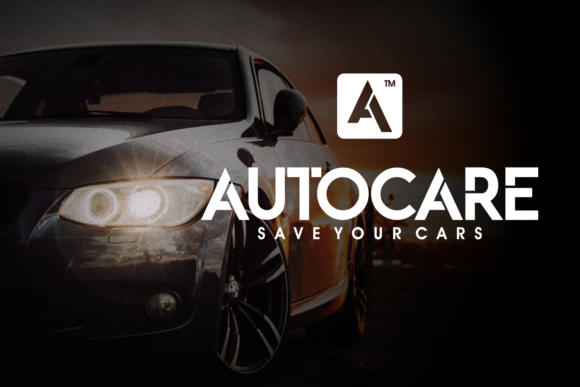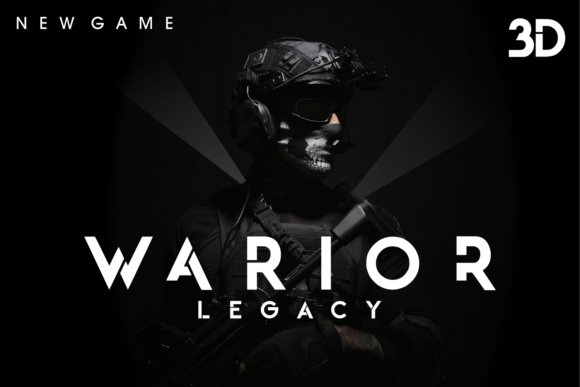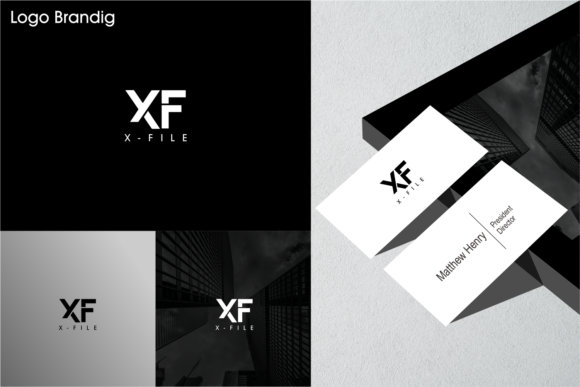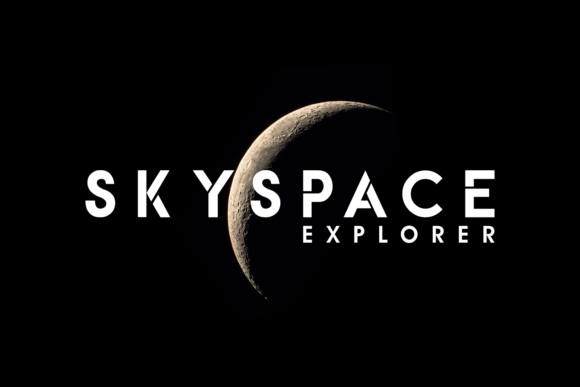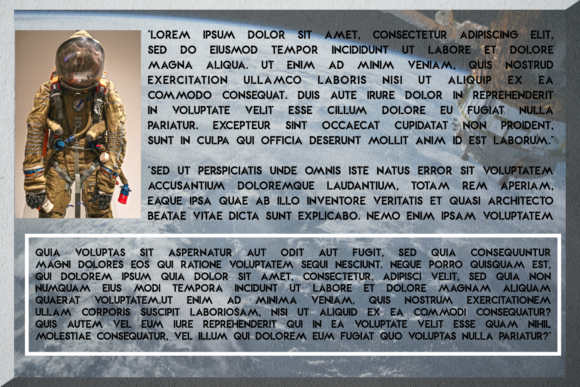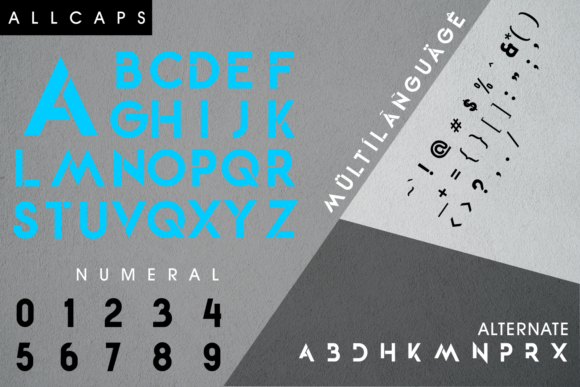
Bartkey Font: Elevate Your Designs with a Bold and Geometric Display Font
Bartkey is a bold and geometric looking display font that can easily be matched to an incredibly large set of projects. Its unique style makes it a versatile addition to your creative toolkit, allowing you to add a touch of sophistication and elegance to your designs. In this article, we’ll explore the features and benefits of Bartkey, and show you how to make the most of this exceptional font.
What Makes Bartkey Stand Out?
Bartkey’s bold and geometric design makes it perfect for creating eye-catching headlines, titles, and captions. Its clean lines and sharp edges give it a modern and sleek look that’s sure to grab attention. Whether you’re working on a branding project, a website, or a marketing campaign, Bartkey is an excellent choice for adding a touch of professionalism and style.
Key Features of Bartkey Font
- Bold and Geometric Design: Bartkey’s unique design makes it perfect for creating eye-catching headlines and titles.
- Versatile and Adaptable: Bartkey can be matched to a wide range of projects, from branding and advertising to web design and crafting.
- Clean Lines and Sharp Edges: Bartkey’s clean lines and sharp edges give it a modern and sleek look that’s sure to impress.
- Easy to Read: Despite its bold design, Bartkey is easy to read, making it perfect for use in a variety of contexts.
How to Use Bartkey in Your Designs
Bartkey is an incredibly versatile font that can be used in a wide range of design projects. Here are a few ideas to get you started:
- Branding and Advertising: Use Bartkey to create bold and eye-catching logos, headlines, and taglines that will help your brand stand out.
- Web Design: Add a touch of sophistication and elegance to your website with Bartkey’s clean and modern design.
- Crafting and DIY Projects: Use Bartkey to add a personal touch to your crafting and DIY projects, such as handmade cards, invitations, and signs.
- Marketing and Promotion: Use Bartkey to create eye-catching promotional materials, such as flyers, brochures, and posters.
Tips for Getting the Most Out of Bartkey
Here are a few tips for getting the most out of Bartkey:
- Pair with Other Fonts: Bartkey pairs well with a wide range of fonts, so don’t be afraid to experiment with different combinations.
- Use it to Create Contrast: Use Bartkey to create contrast in your design by pairing it with lighter or more ornate fonts.
Bartkey is a bold and geometric looking display font that’s perfect for adding a touch of sophistication and elegance to your designs. Its versatility and adaptability make it an excellent choice for a wide range of projects, from branding and advertising to web design and crafting. With its clean lines, sharp edges, and easy-to-read design, Bartkey is sure to become a staple in your creative toolkit.
Get Ready to Elevate Your Designs with Bartkey